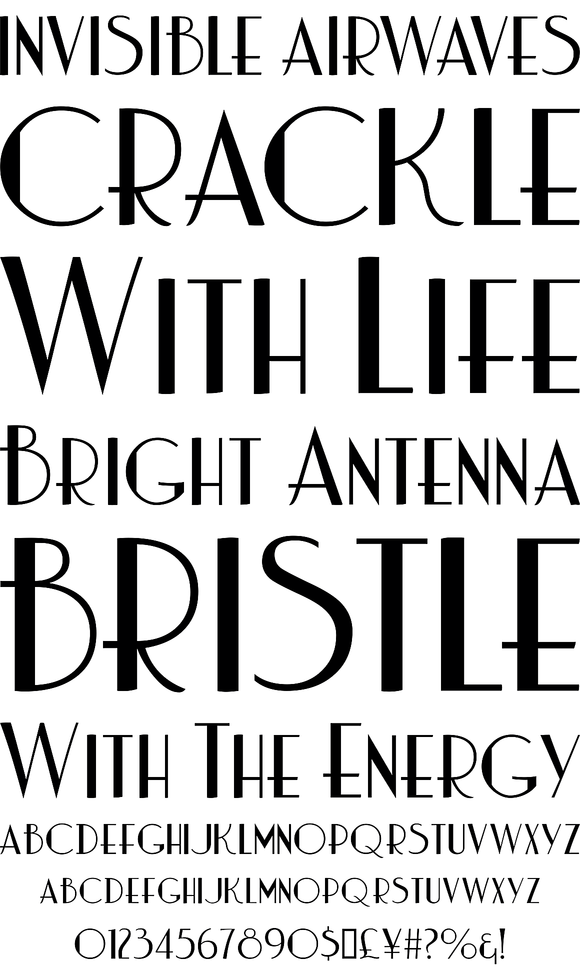
Charbonne
Foundry: TypeArt
An original design based on a decorative type style popular back in the 1930s and '40s
FULL CHARACTER SET
Each font in the Charbonne™ family has a full character set of 242 letterforms, with all characters designed in the style of the font.